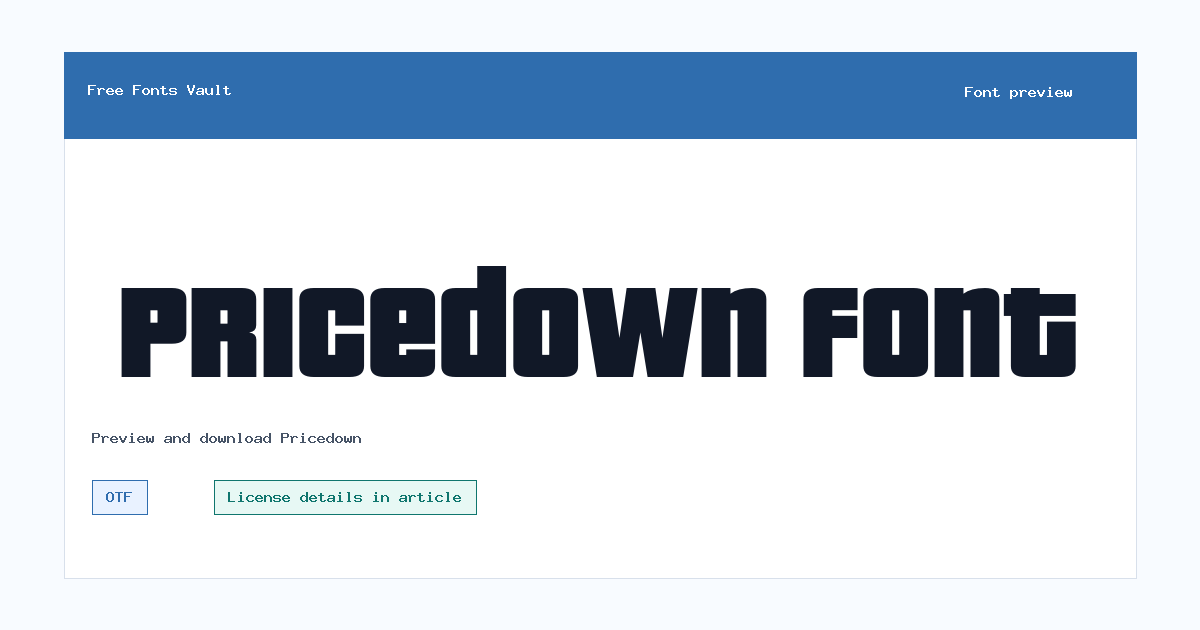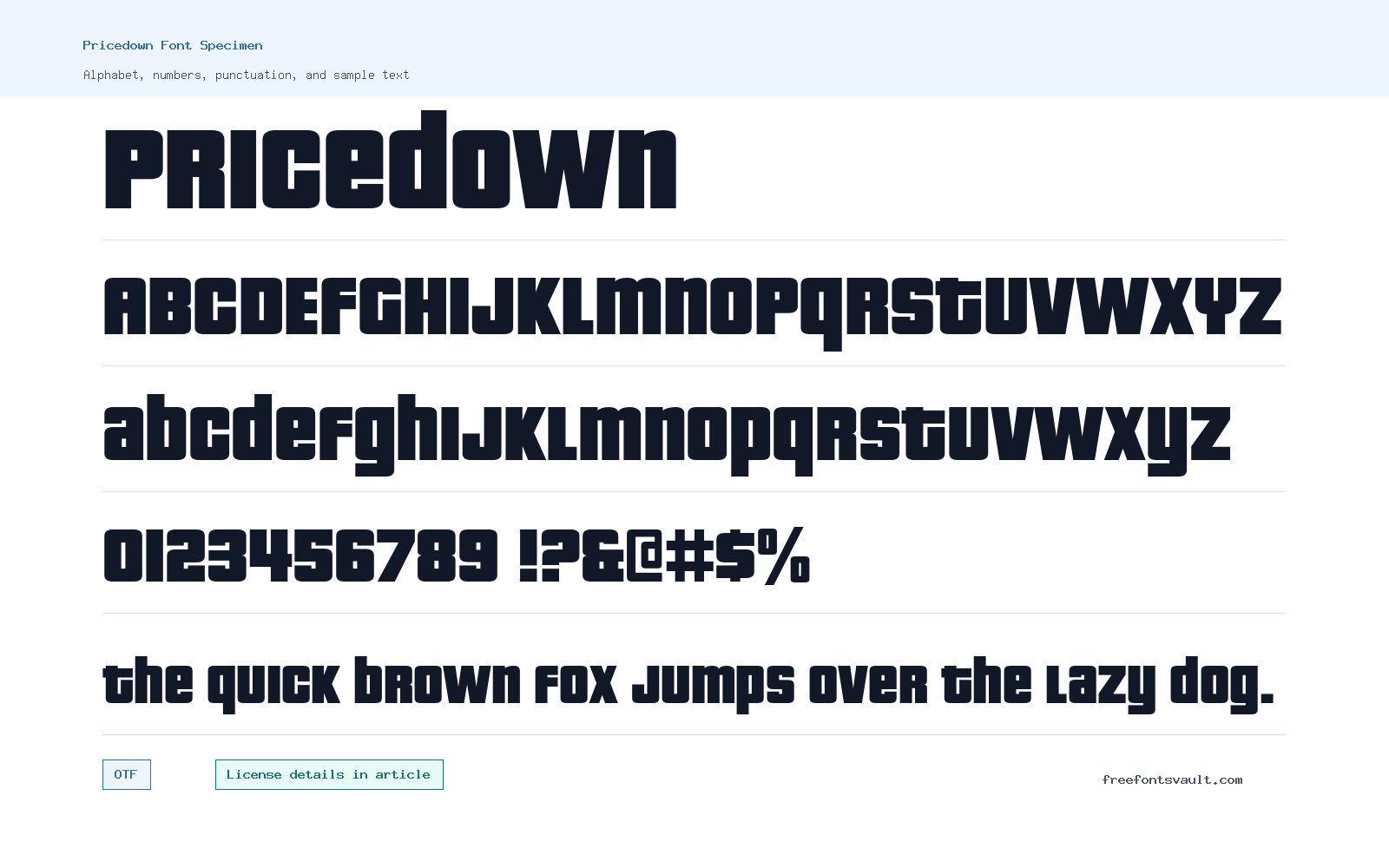
Pricedown
- Designer Ray Larabie
- Foundry Ray Larabie
Pricedown is a bold display font with boxy letterforms, sharp cuts, and a loud headline style. It works best when you need short text to feel graphic, playful, and attention-grabbing.
About Pricedown
Pricedown was designed by Ray Larabie and is published through Typodermic. The family is built around squared shapes, tight rhythm, angular details, and swash-style movement. Typodermic describes the wider Pricedown family as a nine-weight display family, while the downloadable file on this font page is the Black style in OTF format.
Use Pricedown for titles, posters, game-style graphics, apparel artwork, stickers, thumbnails, and social posts where the text can stay short. It is not a good choice for body copy or long paragraphs because the heavy shapes and stylized rhythm are meant for impact, not quiet reading. Try it in the preview with all-caps words, short names, price-style labels, or two- to four-word headlines before downloading.
For cleaner layouts, let Pricedown carry the main phrase and use a plain companion font for smaller information. Its personality is strongest when the surrounding design is simple enough for the heavy letter shapes to stand out.
- Bold, boxy display style with angular cuts and tight spacing
- Part of a larger nine-style Pricedown family sold through commercial font retailers
- Strong fit for short headlines, game-menu inspired graphics, TV-title style layouts, and apparel text
- Posters and event graphics
- Game-style titles and menu text
- Apparel graphics and stickers
- YouTube thumbnails and social media images
- Logo drafts, wordmarks, and bold display lettering
Pricedown is by Ray Larabie and is associated with Typodermic Fonts.
Who designed Pricedown?
Pricedown was designed by Ray Larabie and published through Typodermic.
What style of font is Pricedown?
Pricedown is a bold display font with boxy shapes, angular cuts, tight spacing, and a strong headline look.
Can I use Pricedown for body text?
It is not recommended for body text. Use it for short titles, logos, posters, apparel graphics, and other large display settings.